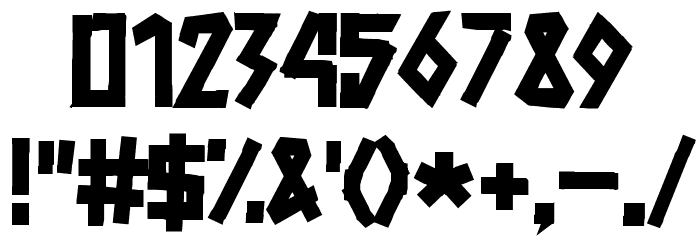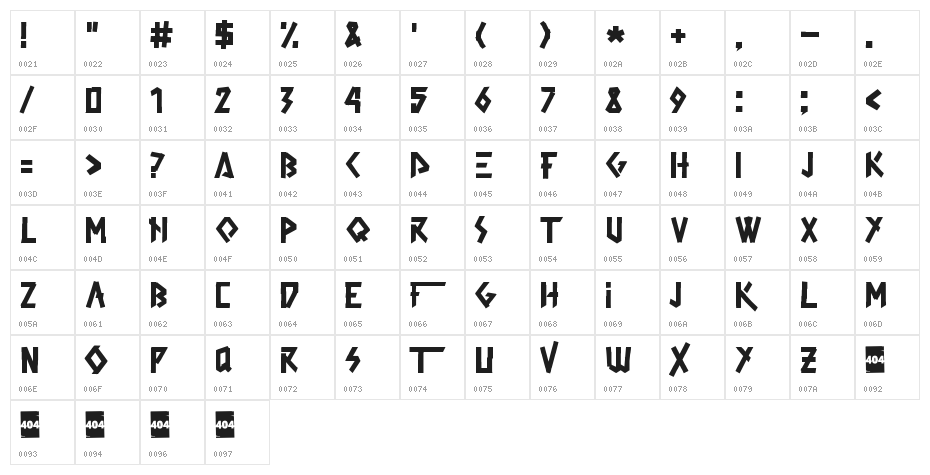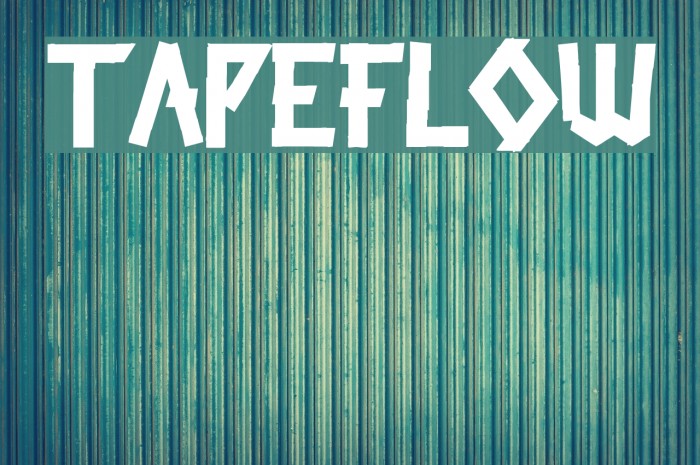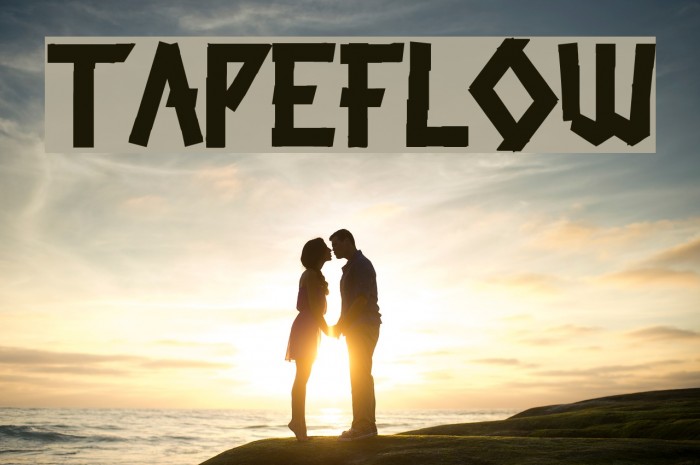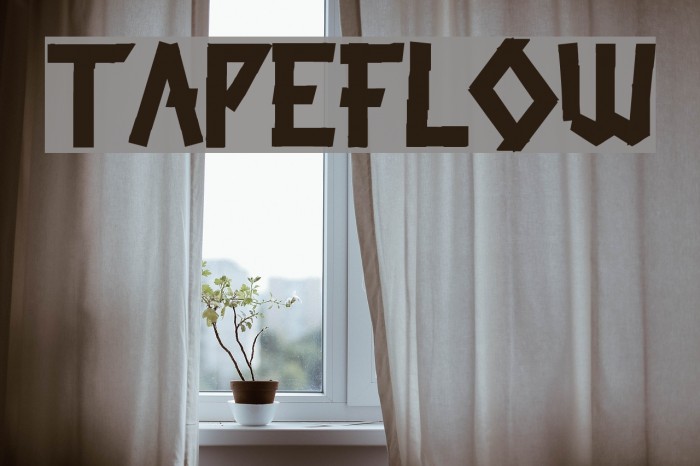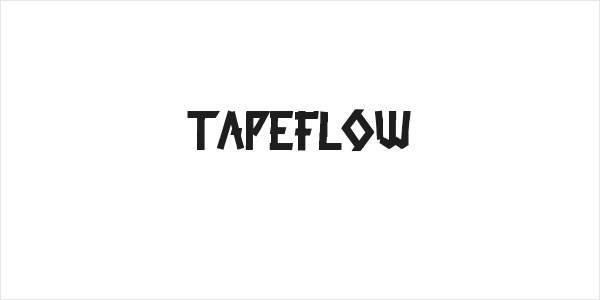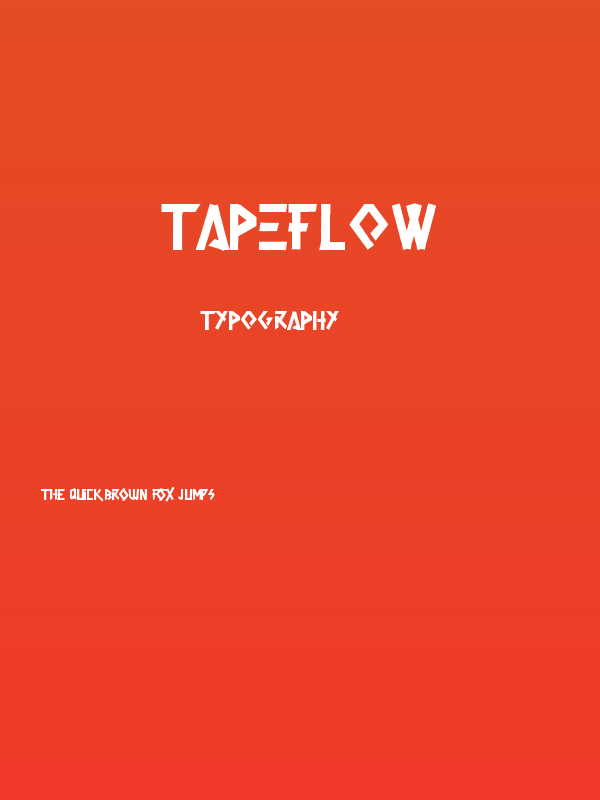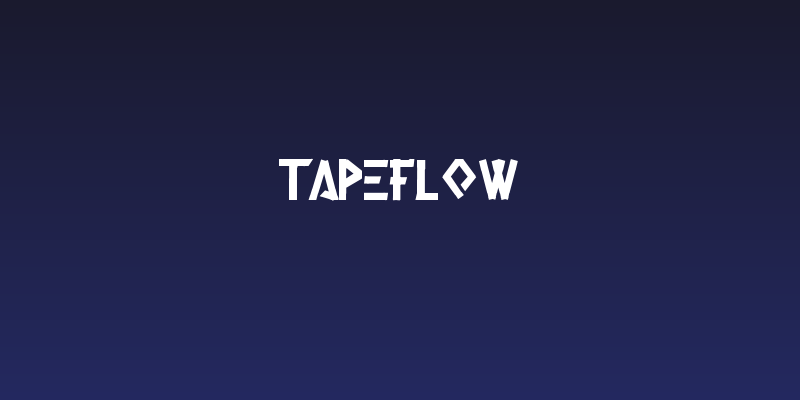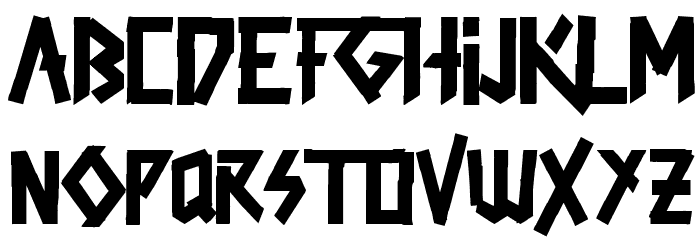
TapeFlow Font
TapeFlow Description
This font features a bold, angular design reminiscent of cut-out tape or stencil art. Its geometric shapes and sharp edges create a striking visual impact, making it ideal for attention-grabbing designs. The uppercase and lowercase letters maintain a consistent style, with each character exhibiting a unique, edgy form. The numbers and special characters follow the same aesthetic, ensuring uniformity across all text elements. This font's distinct appearance is both modern and artistic, suitable for projects that require a bold statement.